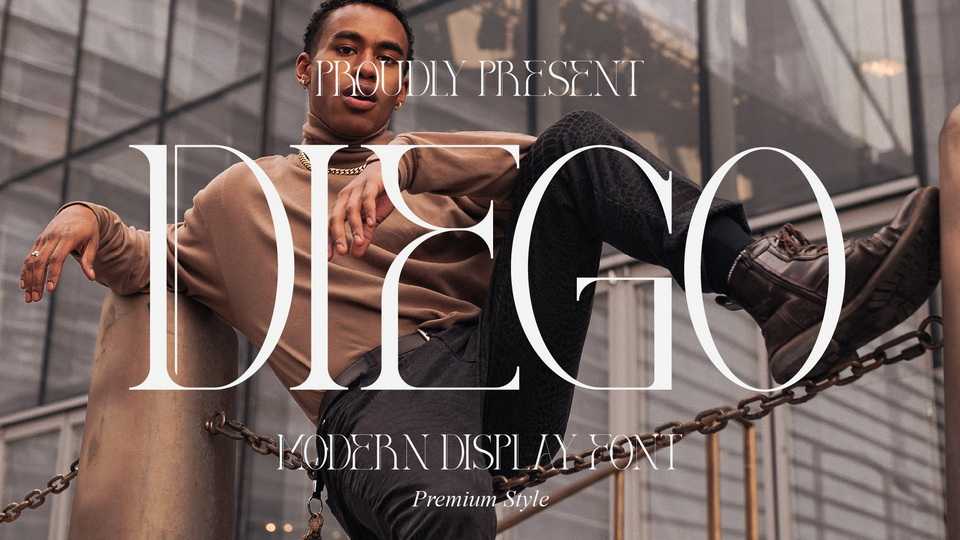
Download Diego font, a refined serif typeface that has own unique style and modern look. Diego font is perfect for an elegant and luxury logo, book or movie title design, fashion brand, magazine, clothes, lettering, quotes, and so much more.